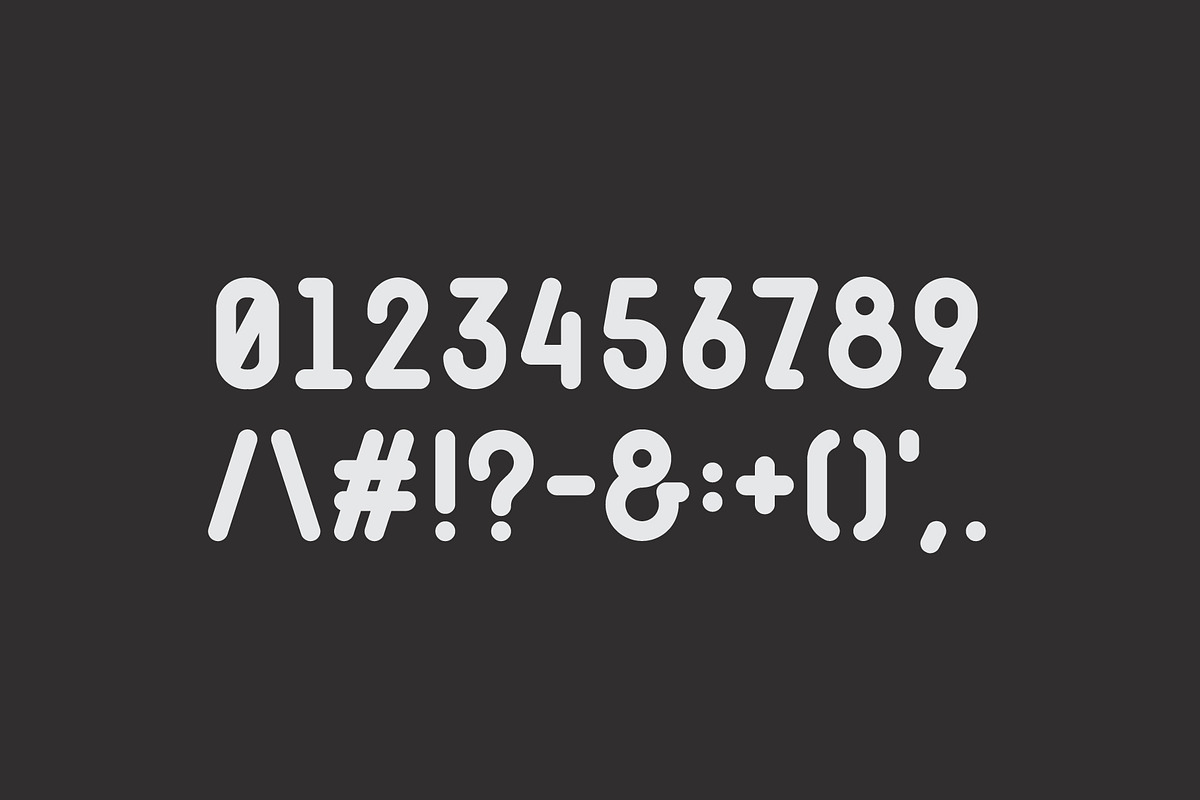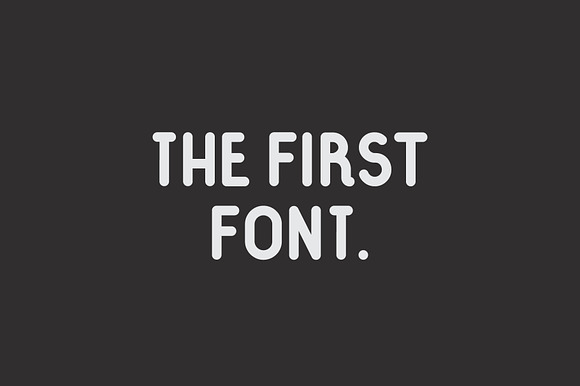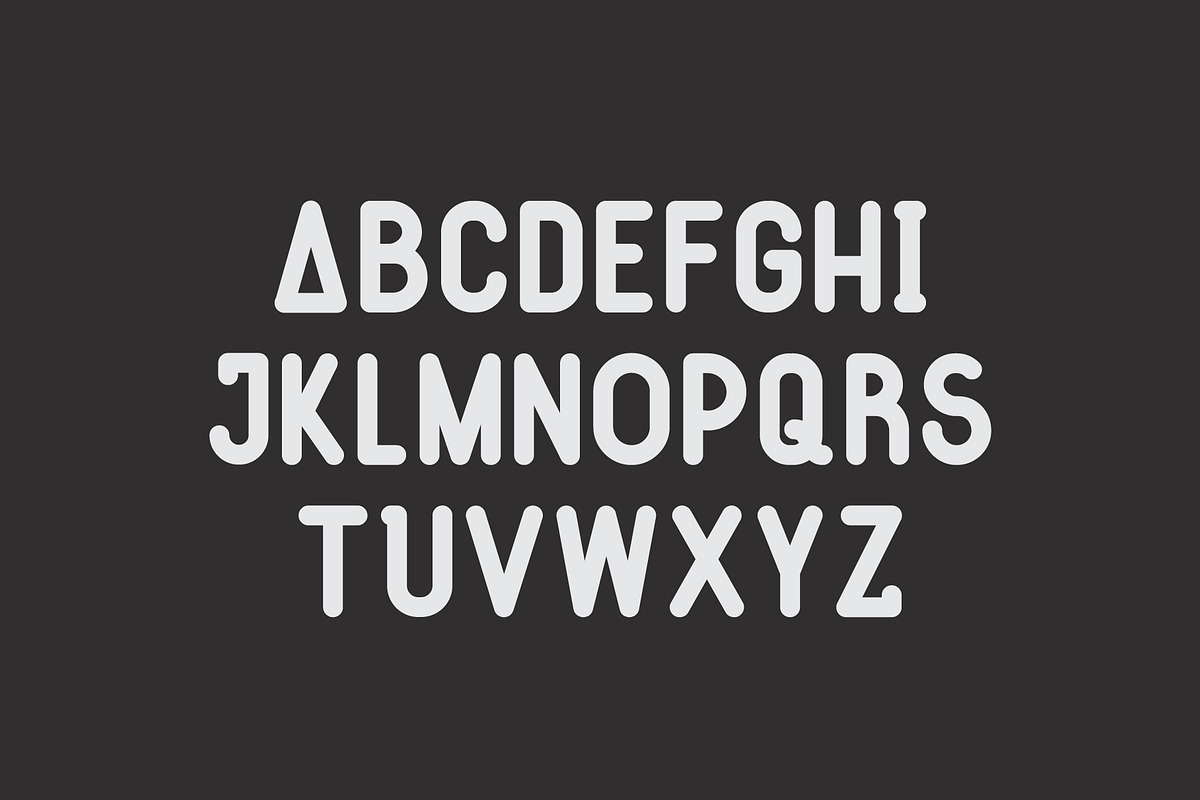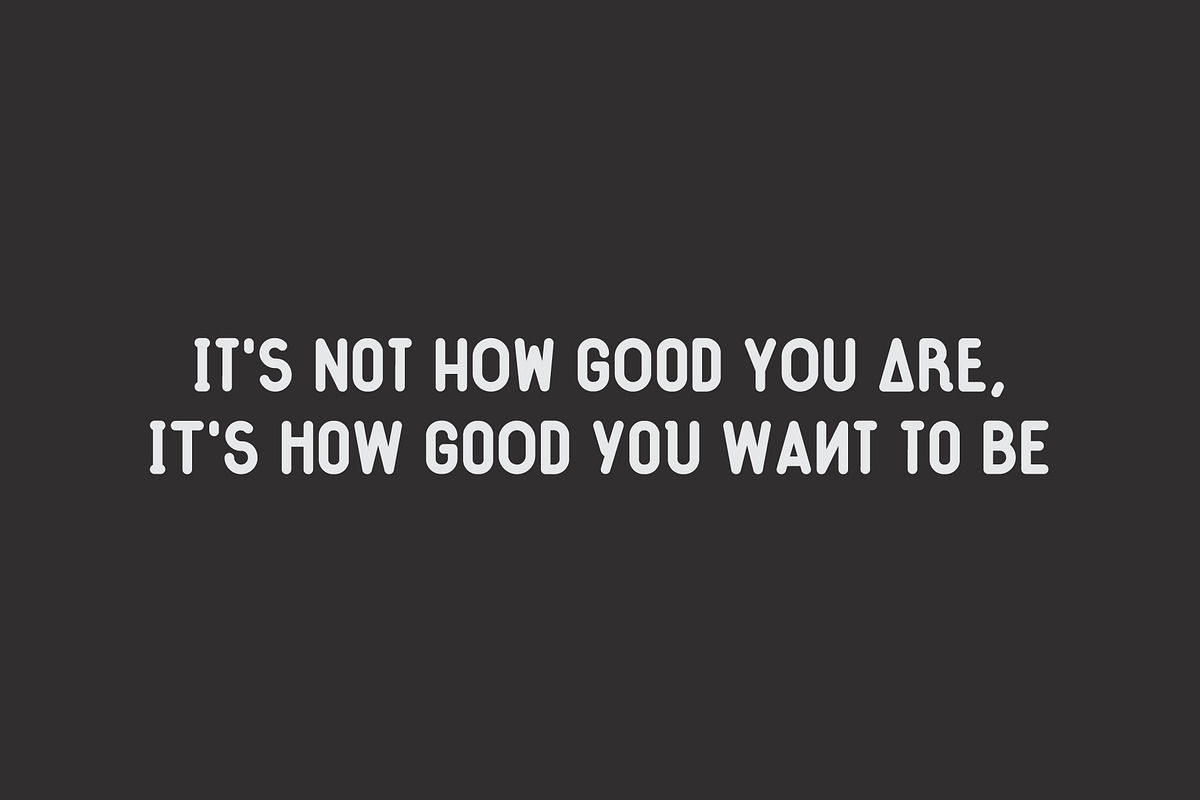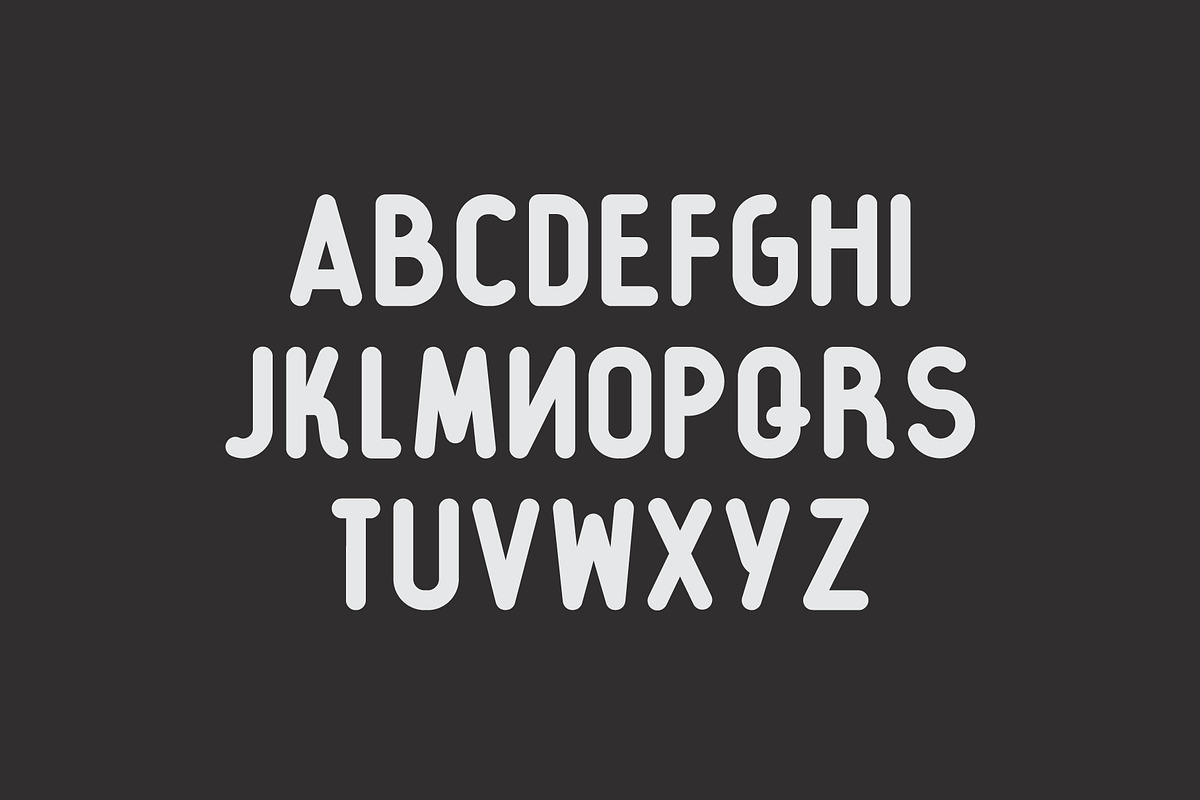
The First Font
a rounded font by sven pels
Why The First Font is worth a look
The First Font by Sven Pels fits naturally into Branding, posters, packaging, typography.